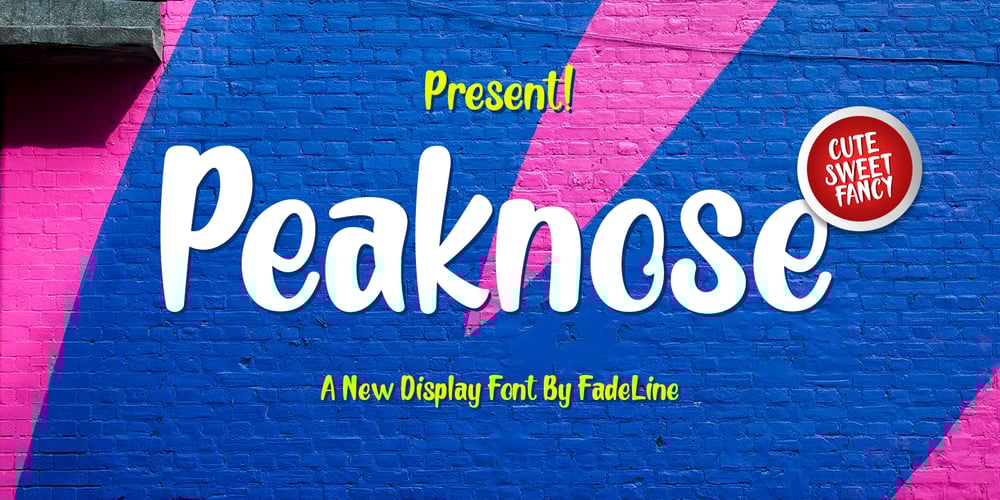
Peaknose Font Family was designed by Juni Fadil Putra and published by FadeLine Studio. Peaknose contains 1 styles and family package options. Peaknose is a fancy comic typeface, cute and beautiful. Although It is also suitable for other purposes such as posters, shopping bags, headline, insignia, badge, t-shirt, logo, branding, cover book, badge, birthday invitation, greeting cards, etc. Peaknose is also suitable for use in the design style as retro, vintage, minimalist, flat, cartoon, modern design, etc. With the combination and some color, you can easily create a compelling message and look beautiful for your design Peaknose comes with a complete set of standard characters, punctuation & international glyphs, are also available web fonts.